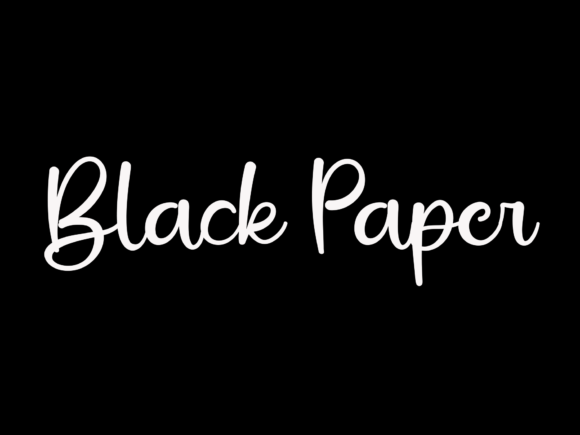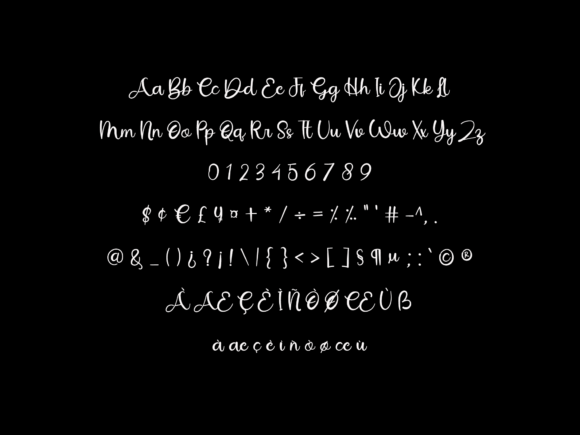
Sumantho Font
db-ku.com - Script & Handwritten -- Sumantho is a delicate handwritten font carefully crafted for a cool and unique design. This font can be used to write letters, invitations, food products, titles and more.